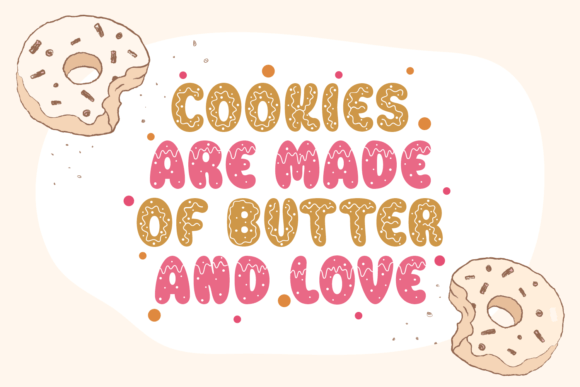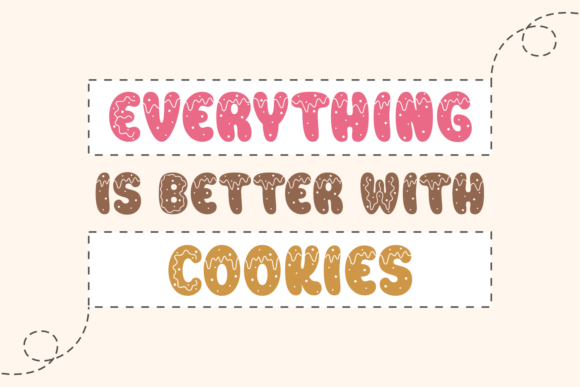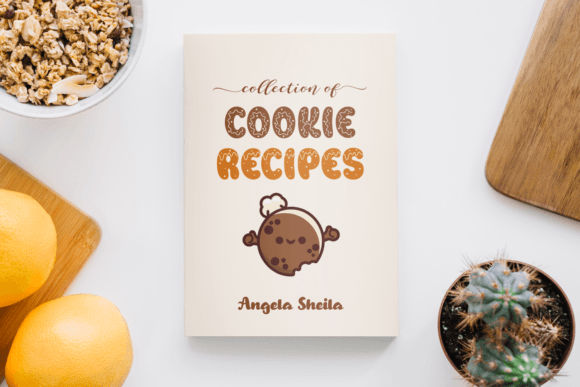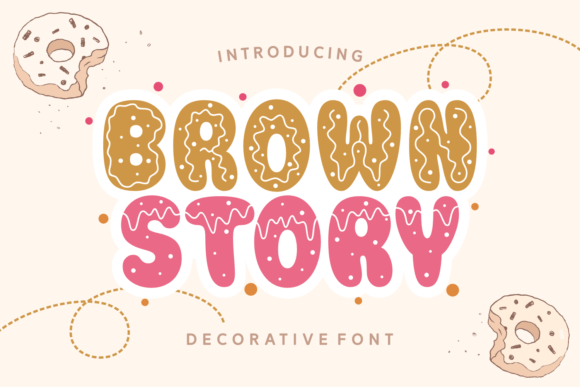
The Magic of Brown Story Font: A Designer’s New Best Friend
I’ll never forget the time I was working on a whimsical children’s book project, and I just couldn’t find the right font to bring the story to life. The client wanted something that felt homemade, yet elegant. I scoured the internet, tried out dozens of fonts, but nothing seemed quite right. That was until I stumbled upon Brown Story Font. ✨
As soon as I saw it, I knew I had found the one. The enchanting, decorative letters seemed to dance on the page, radiating warmth and casual elegance. I knew right then and there that Brown Story Font was going to be my new go-to for all sorts of creative projects.
A First Look: What I Love About Brown Story Font
So, what makes Brown Story Font so special? Here are a few things that I absolutely love:
- ✅ Its unique, handcrafted feel that’s perfect for projects that need a personal touch
- ✨ A wide range of applications, from t-shirt designs to children’s book illustrations, greeting cards, stickers, and posters
- 🌈 A versatile typeface that can add a dash of warmth and whimsy to blog writing and social media content
- 💻 Easy to use and pair with other fonts, thanks to its clean and elegant design
Of course, no font is perfect, and Brown Story Font is no exception. Here are a few things to keep in mind:
- 🤔 Some of the more intricate glyphs and stylistic alternates can be a bit finicky to use, especially for beginners
- ⚠️ The font may not be the best choice for very formal or corporate projects, as it has a distinctly casual and playful vibe
The Story Behind Brown Story Font
So, where did Brown Story Font come from? According to its designer, the font was inspired by the quaint charm of homemade cookies and the warmth of handwritten letters. The designer wanted to create a font that would evoke feelings of comfort and nostalgia, while still being modern and versatile.
- Q: What is Brown Story Font?
- A decorative font inspired by the quaint charm of homemade cookies, perfect for adding a touch of warmth and elegance to your designs.
- Q: What can I use Brown Story Font for?
- You’re free to use Brown Story Font for a wide range of projects, including t-shirt designs, children’s book illustrations, greeting cards, stickers, posters, and more!
- Q: Is Brown Story Font easy to use?
- Yes! Brown Story Font is designed to be user-friendly and easy to use, even for designers who are new to working with fonts.